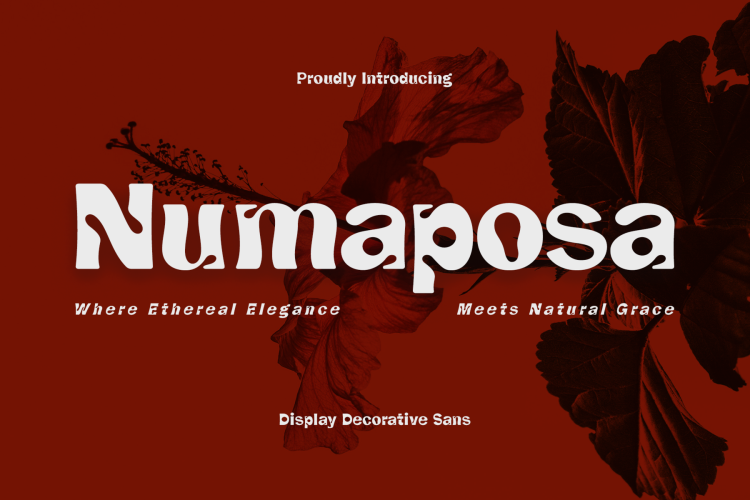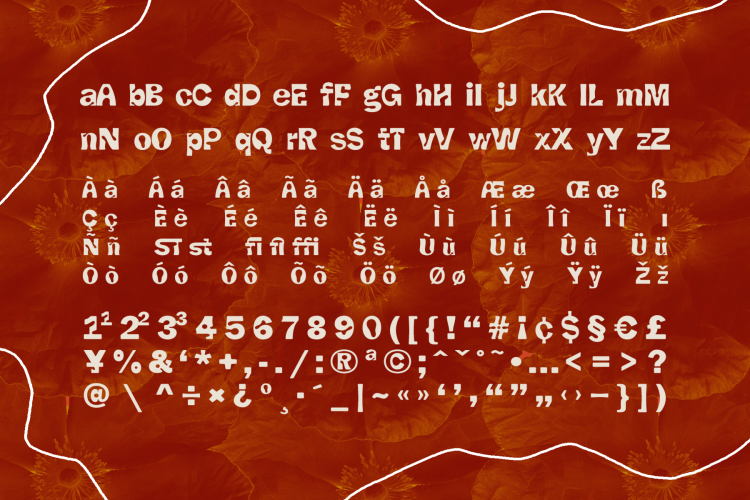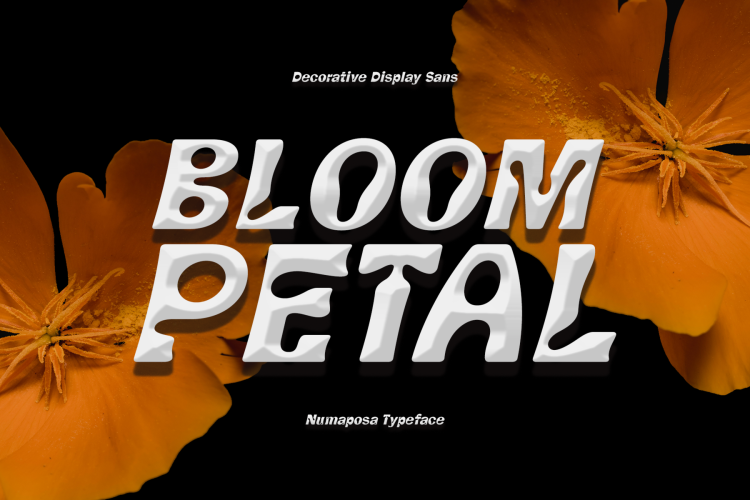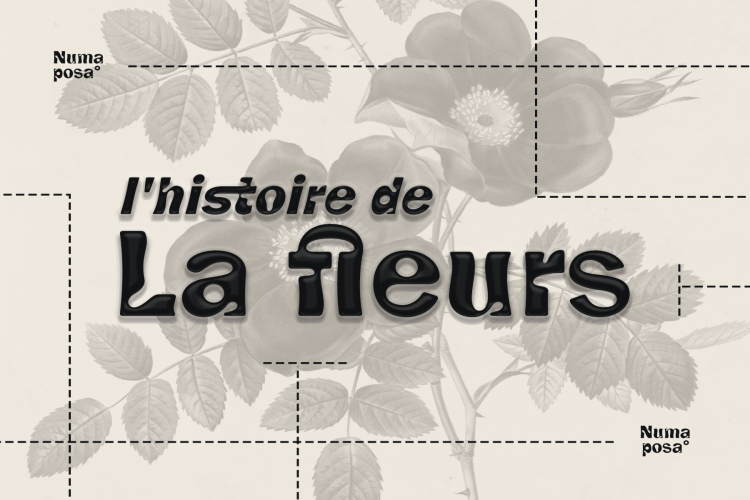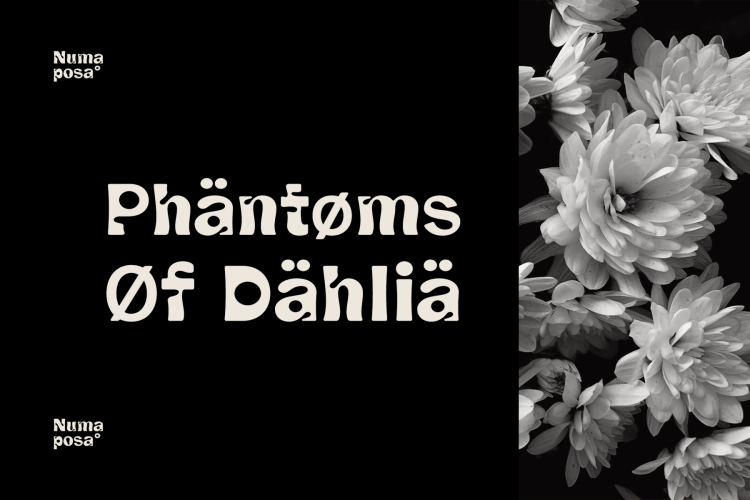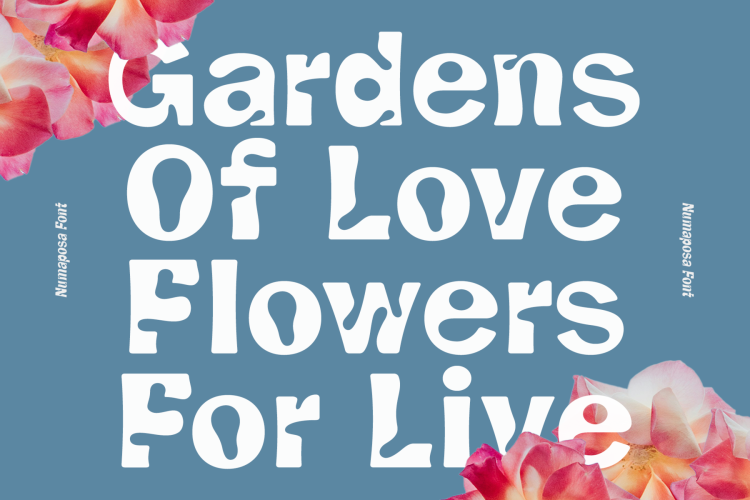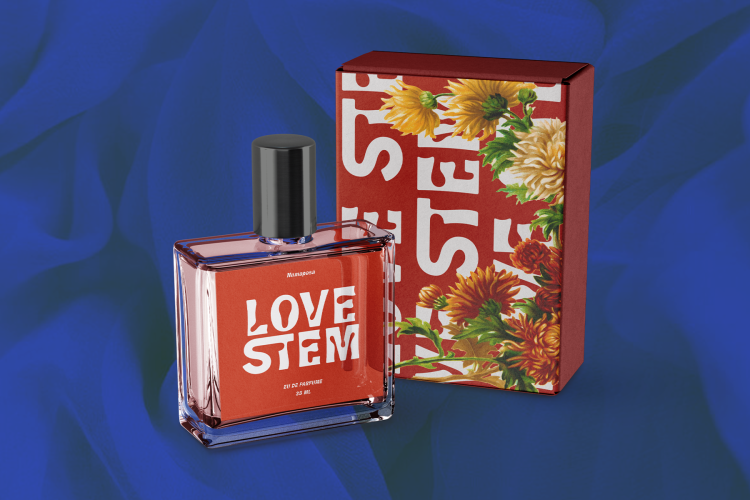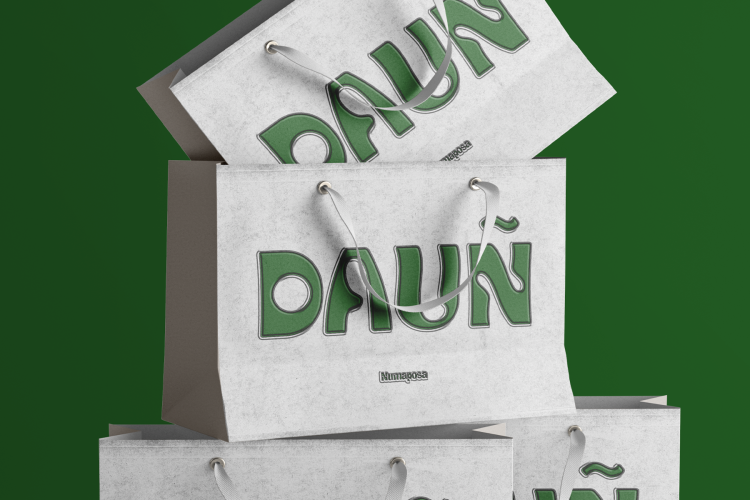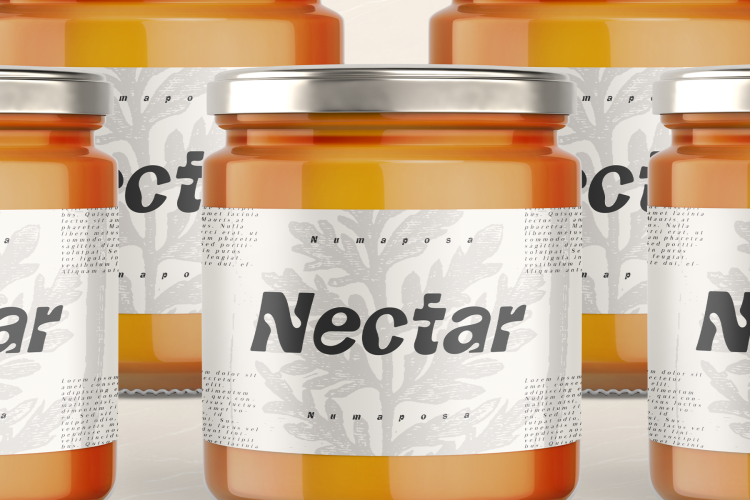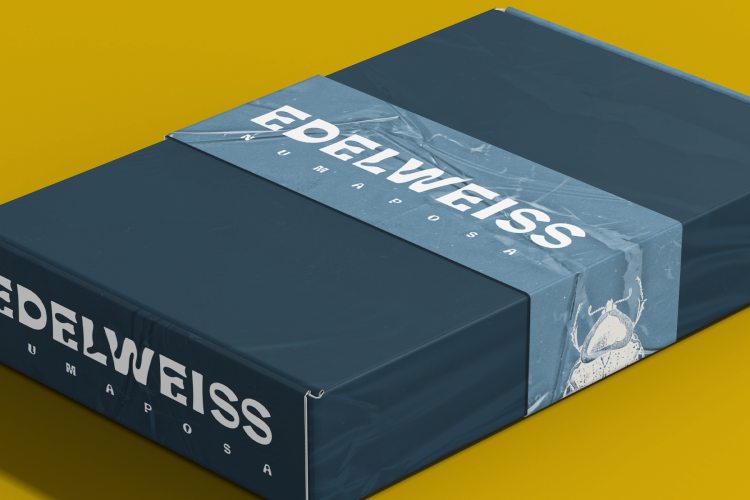
Numaposa is a captivating decorative display font that blossoms with personality! This unique sans serif typeface combines organic curves reminiscent of cursive shape with a playful, modern twist. Notice the soft curves and flowing lines that hint at cursive elegance. These characteristics add a touch of sophistication and informality to your designs. Numaposa’s round letterforms and cleverly incorporated ink traps (the small enclosed areas within some letters) add a whimsical touch. Fluidity glyphs adds to the overall elegance and playfulness of the font. Numaposa offers both regular and italic styles, providing the flexibility to tailor your text according to your design needs.
- Thin, Regular, Medium, Semi Bold, Bold Weight Styles and Italic Style on Each Weight
- Including Alternate Glyphs